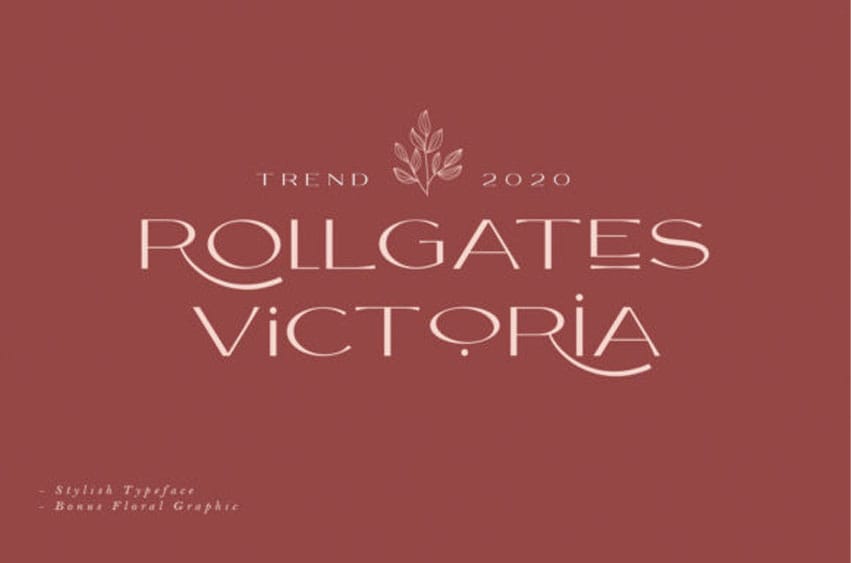
Rollgates Victoria Font is an elegant and charming sans serif font that will turn any design idea into a true piece of art.
Get inspired by its unique charm!